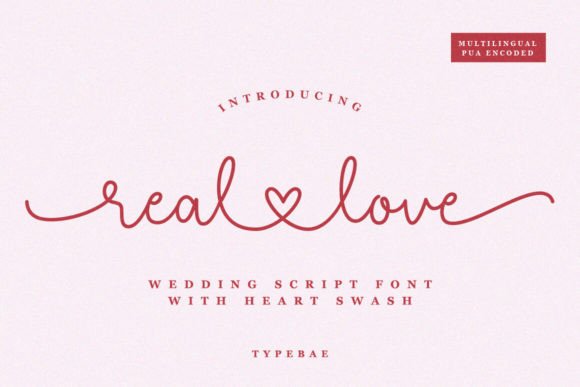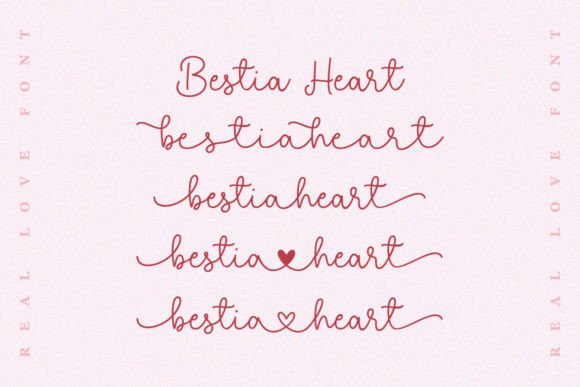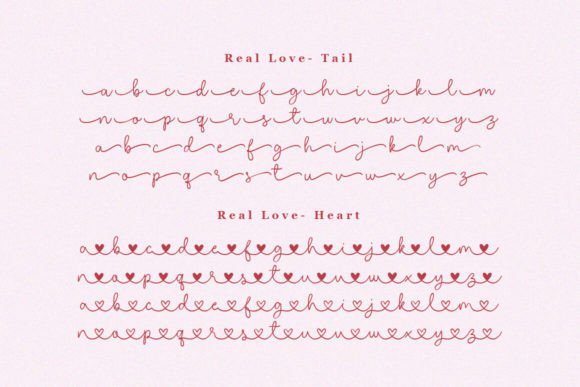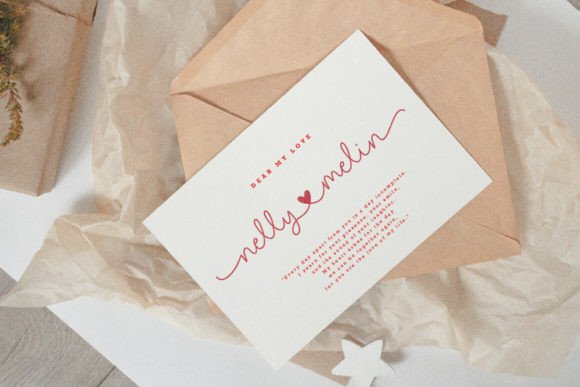
Real Love Font
About the Real Love Font
Welcome to the world of Real Love Font, a typeface that will inspire your next great project. Real Love is a wedding script handwriting font that exudes romance and charm. It has captivating swashes at the beginning and end of each stroke, as well as lovely letter alternates. The distinctive feature of this font is its heart-shaped connecting swashes, which provide a romantic and enchanting touch.
Real Love’s elegant and romantic style makes it ideal for wedding invitations, stationery, and other romantic branding projects. It works beautifully in headlines, short quotes, or logos where its delicate flourishes can be showcased. However, its intricate details make it unsuitable for body text or UI elements requiring high readability.
Pairing Real Love with a clean sans-serif like Lato or a classic serif like Garamond creates a balanced design. For a more playful feel, consider pairing it with a handwritten sans-serif. Avoid pairing it with other highly decorative fonts to prevent visual clutter.
The overall personality of Real Love is undeniably romantic and charming, but also sophisticated and refined. Its delicate nature lends itself to brands associated with love, luxury, or high-end products.
Real Love Font Usage Examples
Real Love Font Example